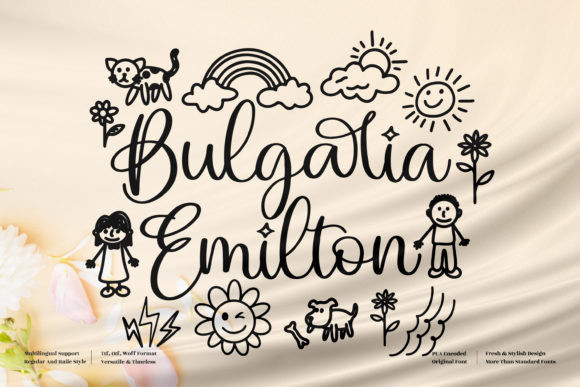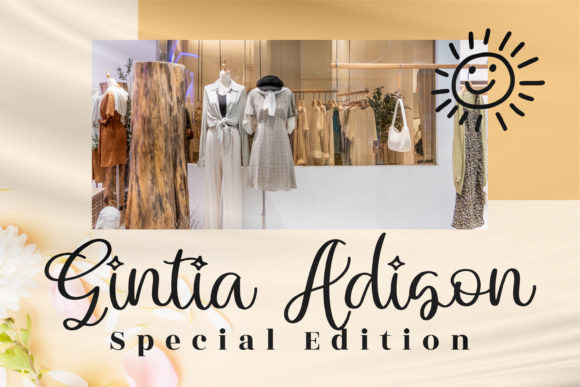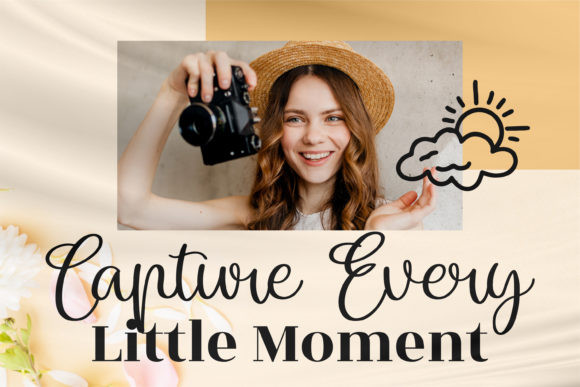
Bulgaria Emilton Font
Bulgaria Emilton FontBulgaria Emilton is a dazzling script font. This font is neatly crafted and highly detailed. Whatever the topic, this font will be a wonderful asset to your font library, as it has the potential to enhance any creation.